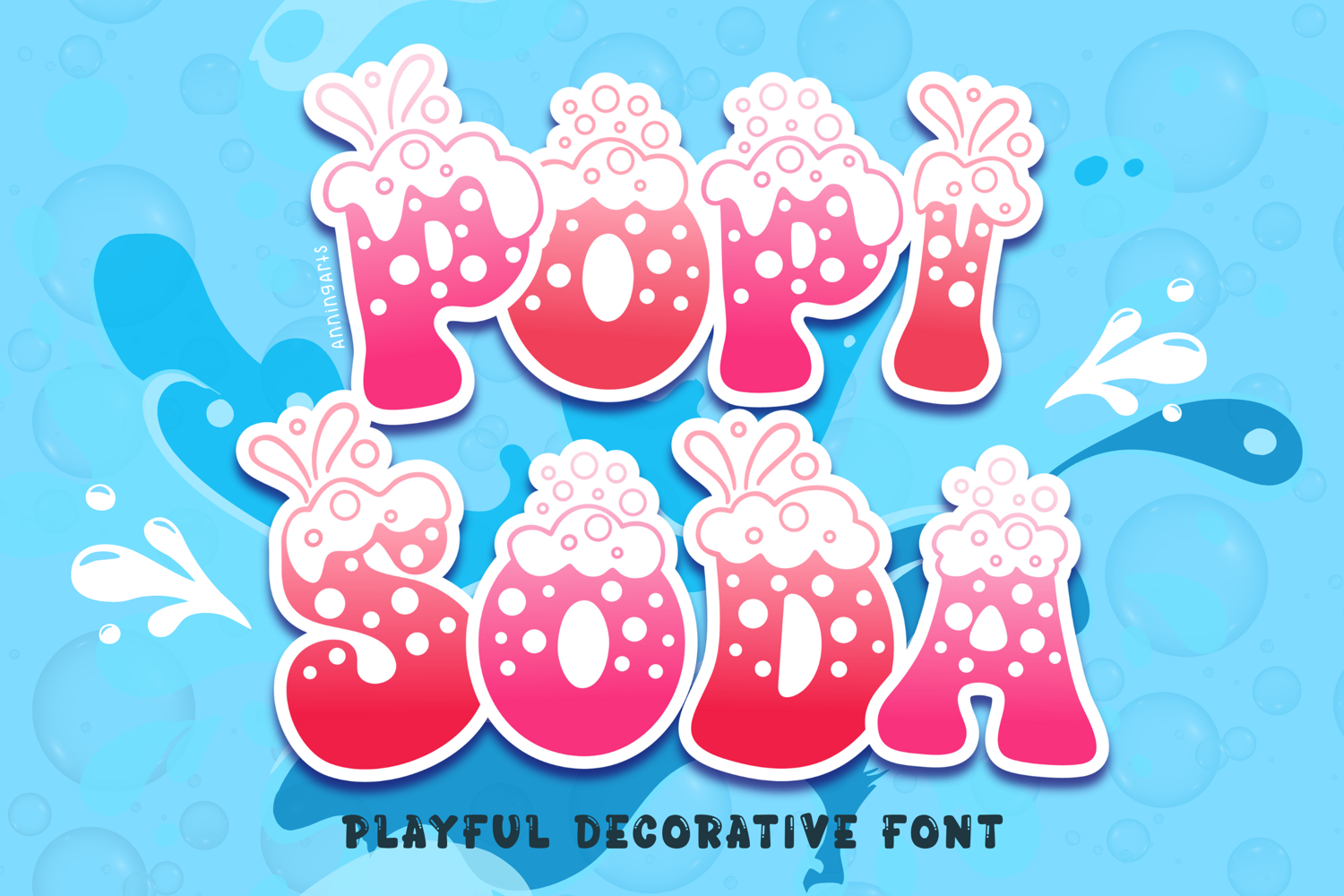
Popi Soda is a fun bubble decorative font filled with bubbly fizz and soda foam. Perfect for party designs, kids’ projects, stickers, apparel, mugs, and scrapbooking. Easy to use with Cricut & Silhouette for crafting.